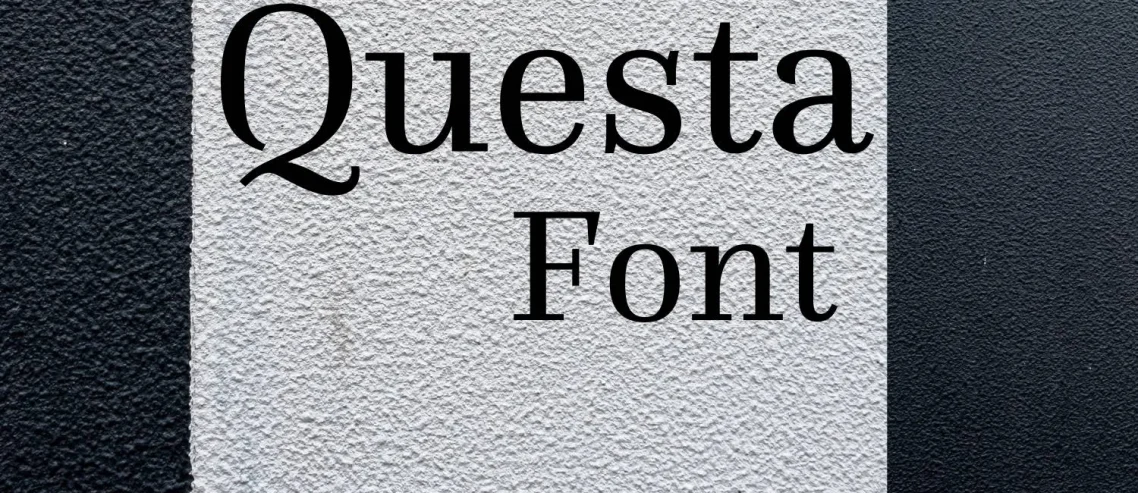
This Font is a serif typeface created by Jos Buivenga. It was launched by the Dutch type foundry TypeTogether in 2009. The inspiration behind the design of this Font comes from the American gothic typefaces of the mid-twentieth century.
Questa Font is a great choice for any project that needs a touch of sophistication and elegance. This Font is a versatile typeface that can be used for both body copy and headlines. You can get a unique texture to combine this font with Point Soft Font.